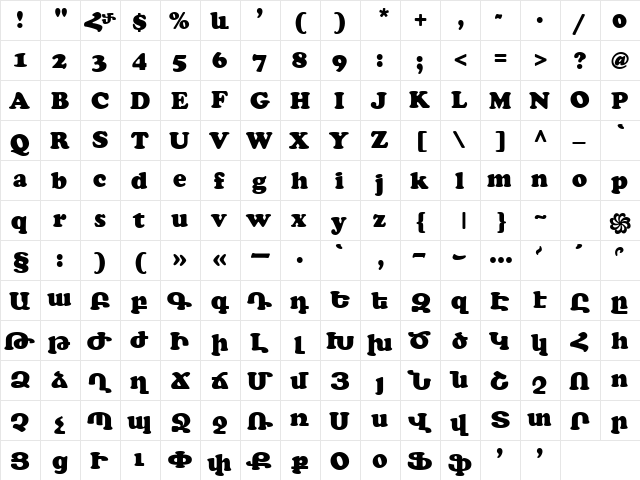
ArTarumianErevan Regular Font Preview
ArTarumianErevan Regular
Design Context for ArTarumianErevan Typeface
ArTarumianErevan takes a measured approach to typography — its balanced proportions and neutral character make it a reliable workhorse for both digital and print work.